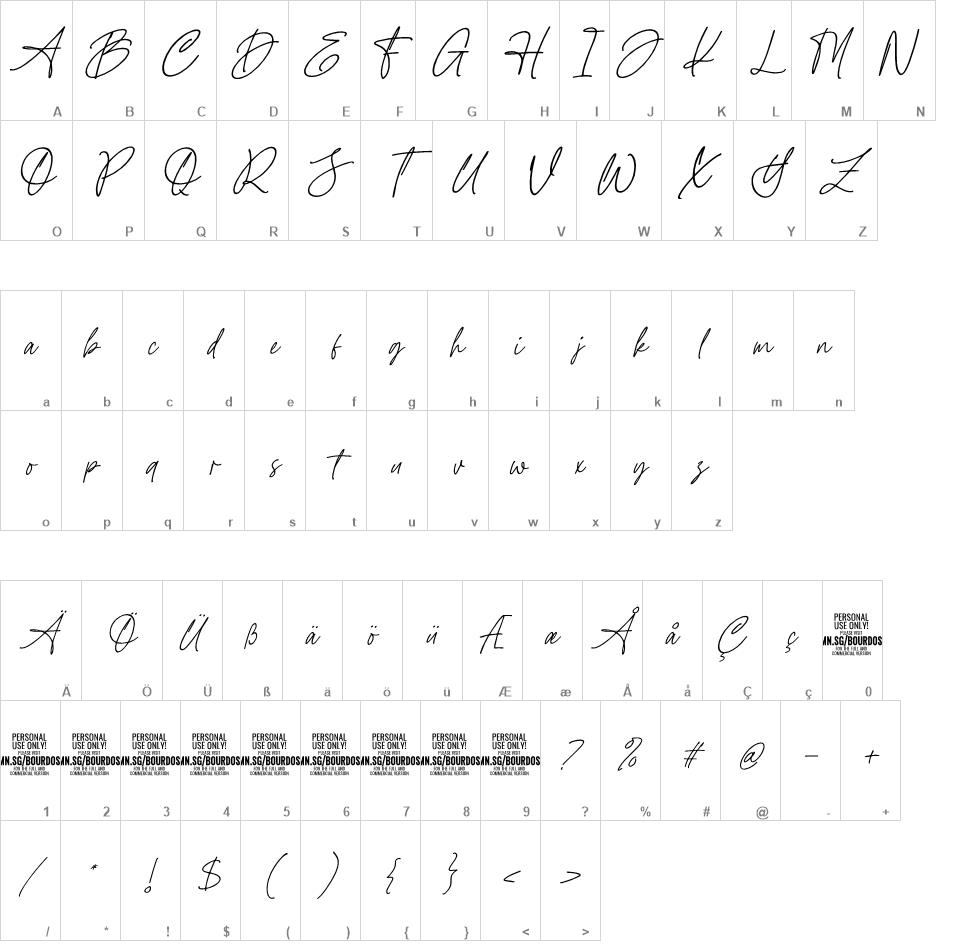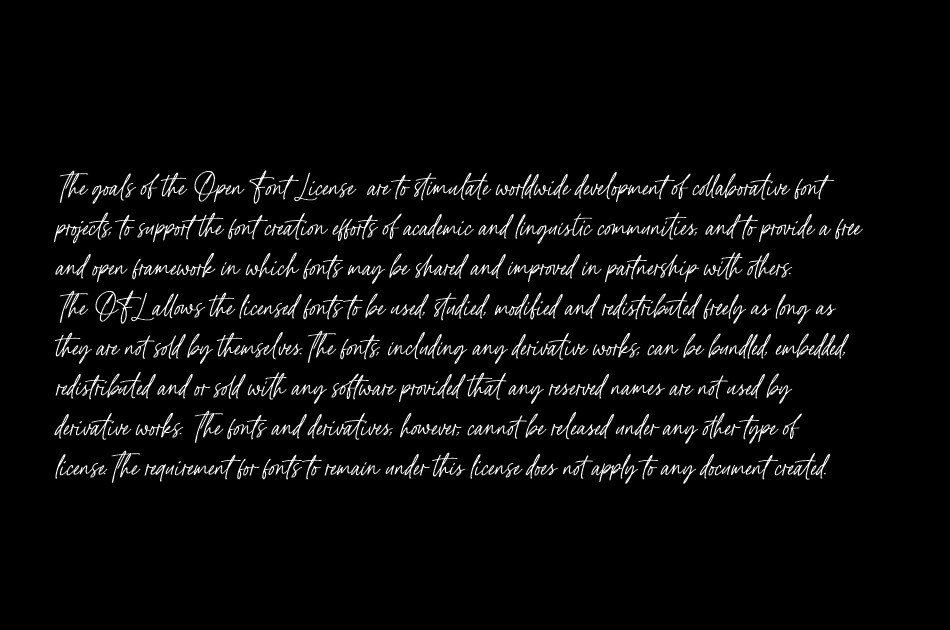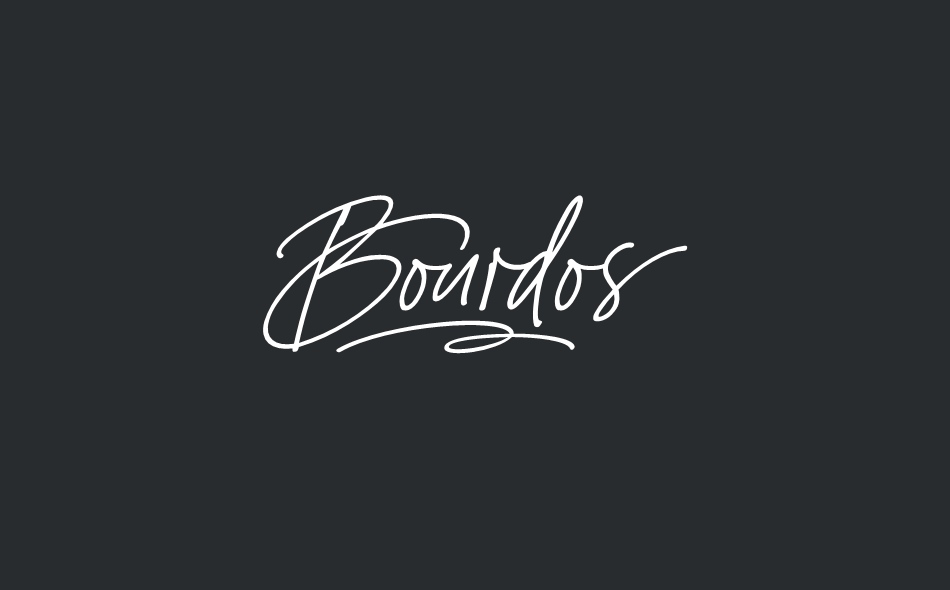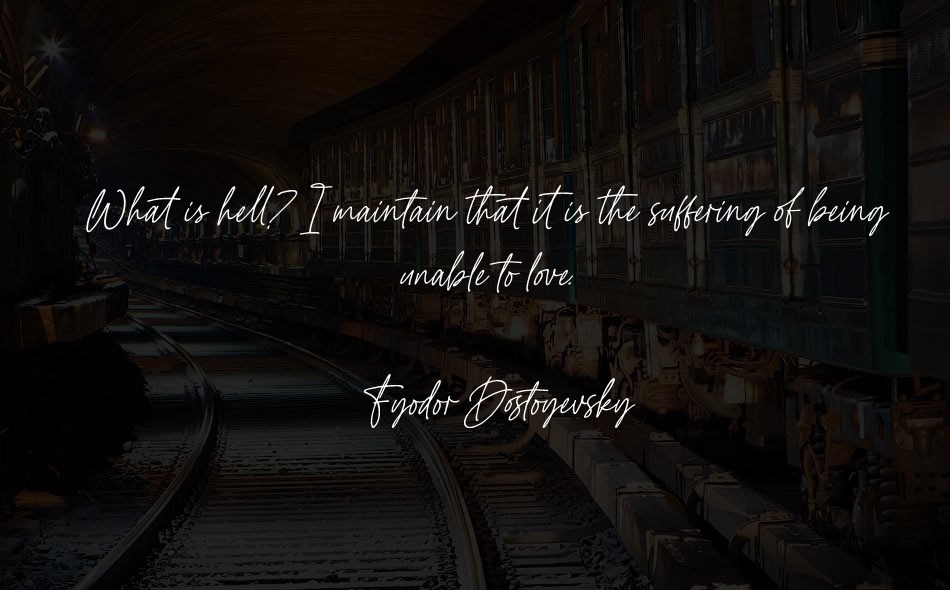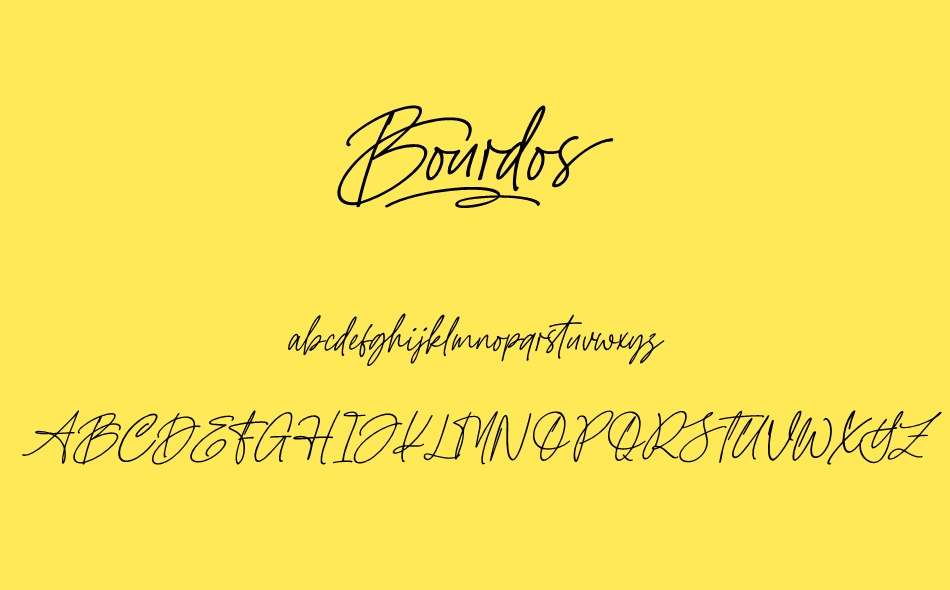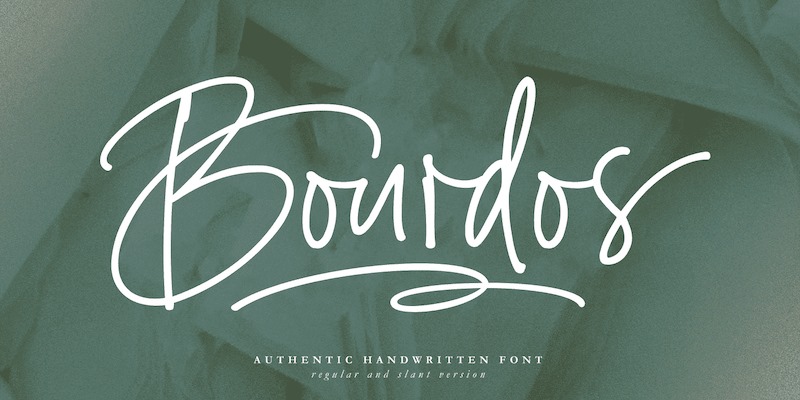
Bourdos font
Use underscore _ to make a swash.
Example: Amaz_ing
Use multiple underscores to make different swashes.
Example: Price__less
Bourdos is an energetic script typeface.
Its vivid letter forms move quickly over the paper, with active calligraphic movements and a joyful humour.
A beautiful handwriting font, Bourdos should be used for a modern logotype, an enthusiastic headline, or any graphic that needs that extra spark of life.
The Bourdos family consists of four styles. The weights Bold and Regular, as well as Italic and Bold Italic.
The font is built with advanced OpenType functionality and has a guaranteed top-notch quality, containing stylistic and contextual alternates, ligatures and more features; all to give you full control and customizability. It has extensive lingual support, covering all Latin-based languages, from North Europe to South Africa, from America to South-East Asia. It contains all characters and symbols you'll ever need, including all punctuation and numbers.